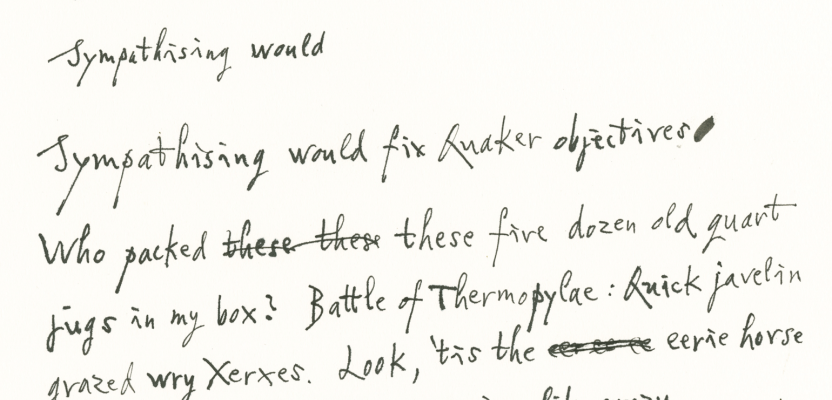
If there’s one word that comes to mind when thinking of Sir Quentin Blake’s work, it’s joy. As one of the world’s most eminent and well-loved illustrators, his art — whether found in his famous collaborations with Roald Dahl, in his own range of award-winning books, or hanging in exhibition halls — has helped hundreds of characters leap from the page and into the hearts of children (and big children) the world over.
His playful style is particularly evident in his handwriting. With its distinctive forms and irregular placement it is very, undeniably, his, and is often just as much in demand as his illustrations, whether it’s for the cover of a book, publication, or other commercial work. In addition, he’s a long-standing supporter of many charities and projects and is regularly asked to write out names or phrases to be displayed as a sign of his support. He is, not surprisingly, a busy man.
A typeface in the style of his writing had been created for use in publishing some years ago but, as time went by, its limitations had become more noticeable. Quentin and his team looked to Monotype to create a new typeface that could help lessen the weight of demand on his time and meet a wider variety of needs.
Quentin Blake's handwriting samples
The challenge
Take a look at your handwriting and you’ll be able to spot the details that make it uniquely yours, whether it’s the arc of a nine, a sharp cross on a t, or a loop on a g. For the new typeface to be a success it would need to mimic Quentin’s own idiosyncrasies: the small and varying lowercase height, the unpredictable stroke thickness, the exaggerated crossbars and tails. It would need to be flexible too, capturing the same rhythm and spacing that he would include when laying out a piece of lettering by hand. And it would need to accommodate a demand for international languages to help meet more time-consuming challenges: “Requests for different languages can be quite difficult if he’s not familiar with them,” explains Liz Williams, Quentin’s archivist. “He has to consider each letter carefully to make sure it’s right and that can detract from the natural flow.”
The brief was simple, if challenging: to create a typeface that reflects the unique form of Quentin’s writing in an authentic, natural way; not just the shape of the letters but the way he chooses to place them.
The solution
Starting with Quentin’s original inkings, Monotype’s type designer Toshi Omagari set about selecting and redrawing individual letters, numbers and symbols, but it soon became apparent that using this technique lost some of the flow of the original handwriting. Toshi went back to Quentin for more samples, this time written in sentences and pangrams.
From these, he selected four subtly different alternates for each character that, combined, would make the text look random enough to look authentic while keeping the glyph set manageable. The importance was in finding the balance between variety and regularity: “Without variants, handwriting fonts run the risk of looking unnatural; too many and the process can become unmanageable,” explains Toshi. “Quentin’s writing is anything but regular but it’s not totally random either. There’s something you can find in it to say that it’s his — just as no single cloud is identical to another and has no definite shape, when you find one in the sky you can still tell it’s a cloud.”
Examples of Quentin Blake’s name generated in various ways using subtly different alternates
Each of the alternate characters was selected on the basis of size, similarity and clarity: not being too large or small, not too similar, the ink not too smudged. Where needed, additional glyphs for characters that couldn’t be captured consistently, mainly non-English letters and uncommon symbols that occur infrequently, were drawn in Quentin’s style. The overall appearance needed to be natural: “I didn’t want anything to look too unique, especially in the vowels which appear more frequently, because people would notice the ones that stand out, notice them repeated, and realise it’s a font,” adds Toshi. “It had to look random, and it had to hide the fact that it’s not his actual handwriting.”
This same principle applied when it came to kerning, with Toshi taking care not to regularize spacing too much in order to maintain the writing’s characteristic irregularities. This was no mean feat; four sets of variants meant each glyph was first kerned against the others in its own set, and then against the glyphs in the other sets (in total, the kerning was tested in nearly 25 permutations). Any ligatures that featured in Quentin’s writing were also carefully balanced, while letters like t, whose trailing, longer bars were more difficult to place, were given a little more adjustment to make sure they touched nicely against neighboring characters.
The finished typeface doesn’t just look like Sir Quentin Blake’s writing, it acts like it too. As you type a letter, each one of the four variants appears in an order that avoids repetition of the same shape, making it appear random. For print use, a roughness filter has been applied to give an authentic handwritten finish, while the web version has a cleaner outline and smaller character set to achieve a reduced file size. The addition of diacritical characters to cover Latin alphabets means it’s ready to take on broader challenges.
His team is hopeful the typeface will meet any needs and ideas that come up now and in the future. It’s already been used in an app called Twit or Miss, on the television program Britain’s Favourite Children’s Books, and will soon be found on a series of new mugs and on the Quentin Blake website. In the long term they’re optimistic that it will have uses within screen and stage environments as well as for exhibition titles, captions and graphics. It’s an integral part in helping ensure his handwriting continues to be enjoyed for years to come.
For now it allows Quentin more flexibility and, importantly, he has a typeface that he’s happy with, as he explains: “I have been impressed by the way that Monotype interpreted my handwriting in various forms, so that it has the distinctive characteristics but at the same time is eminently usable as a typeface in any number of situations.”
Quentin’s typeface used on the television program Britain’s Favourite Children’s Books
The typeface helps users explore the Twits’ house in the House of Twits app